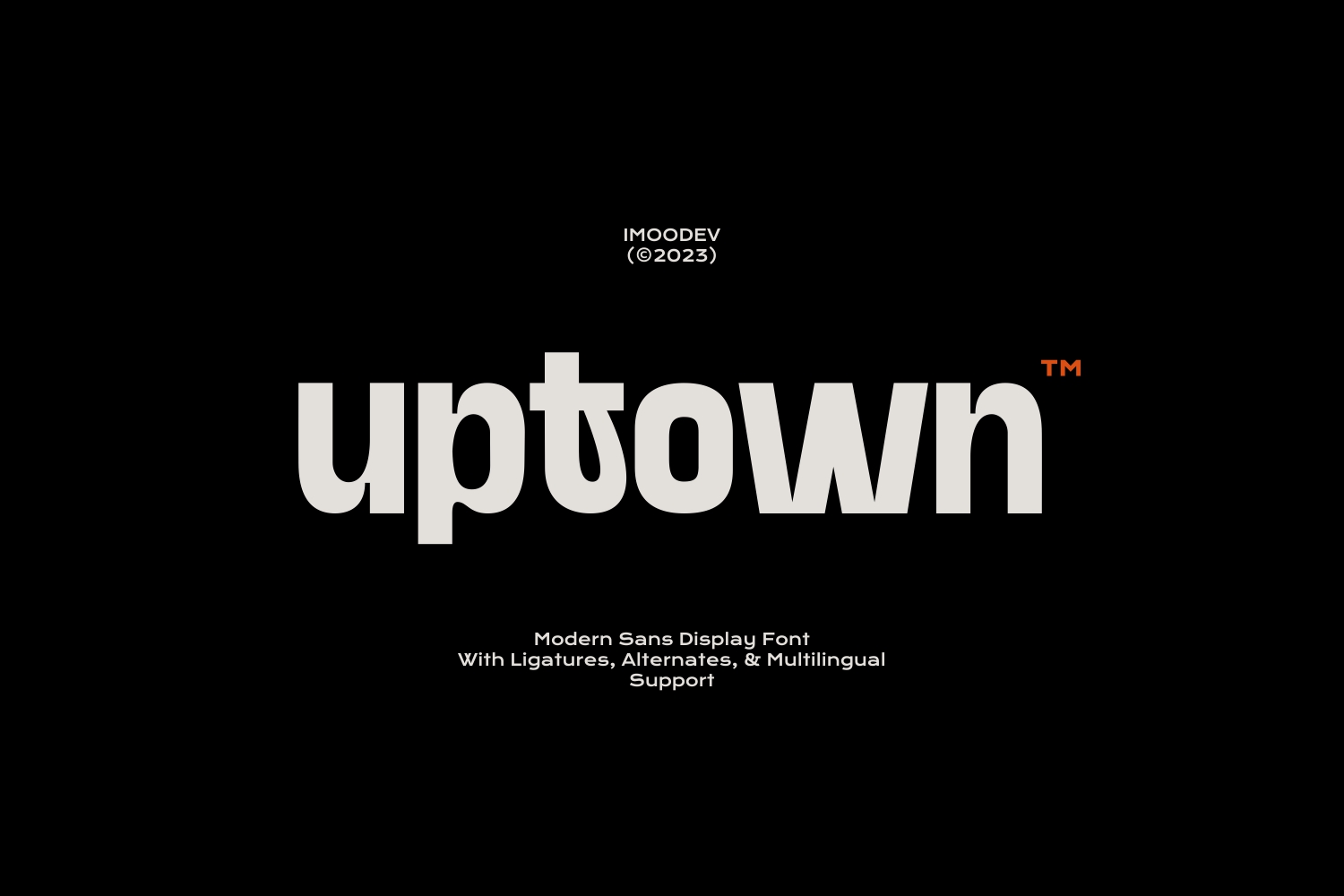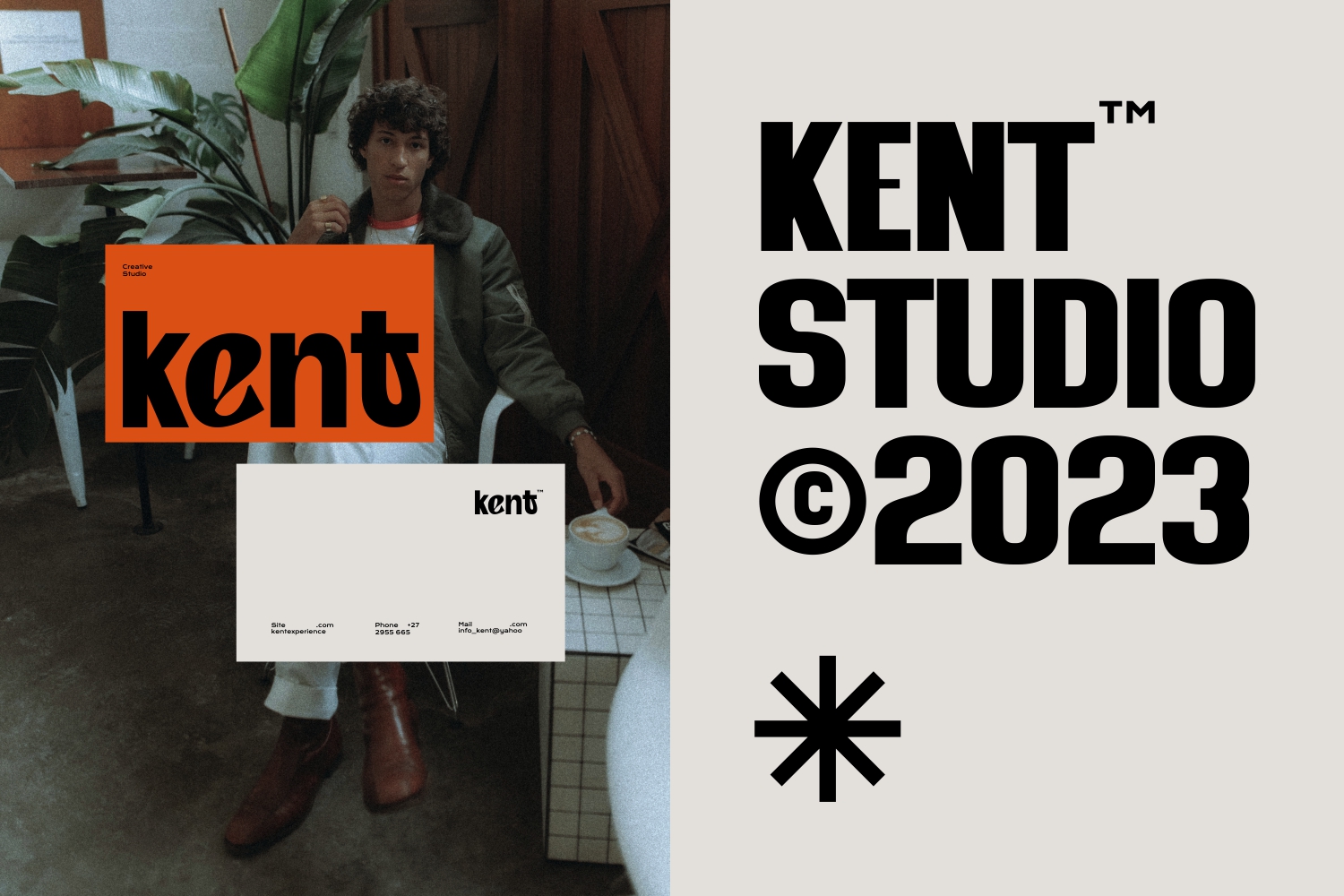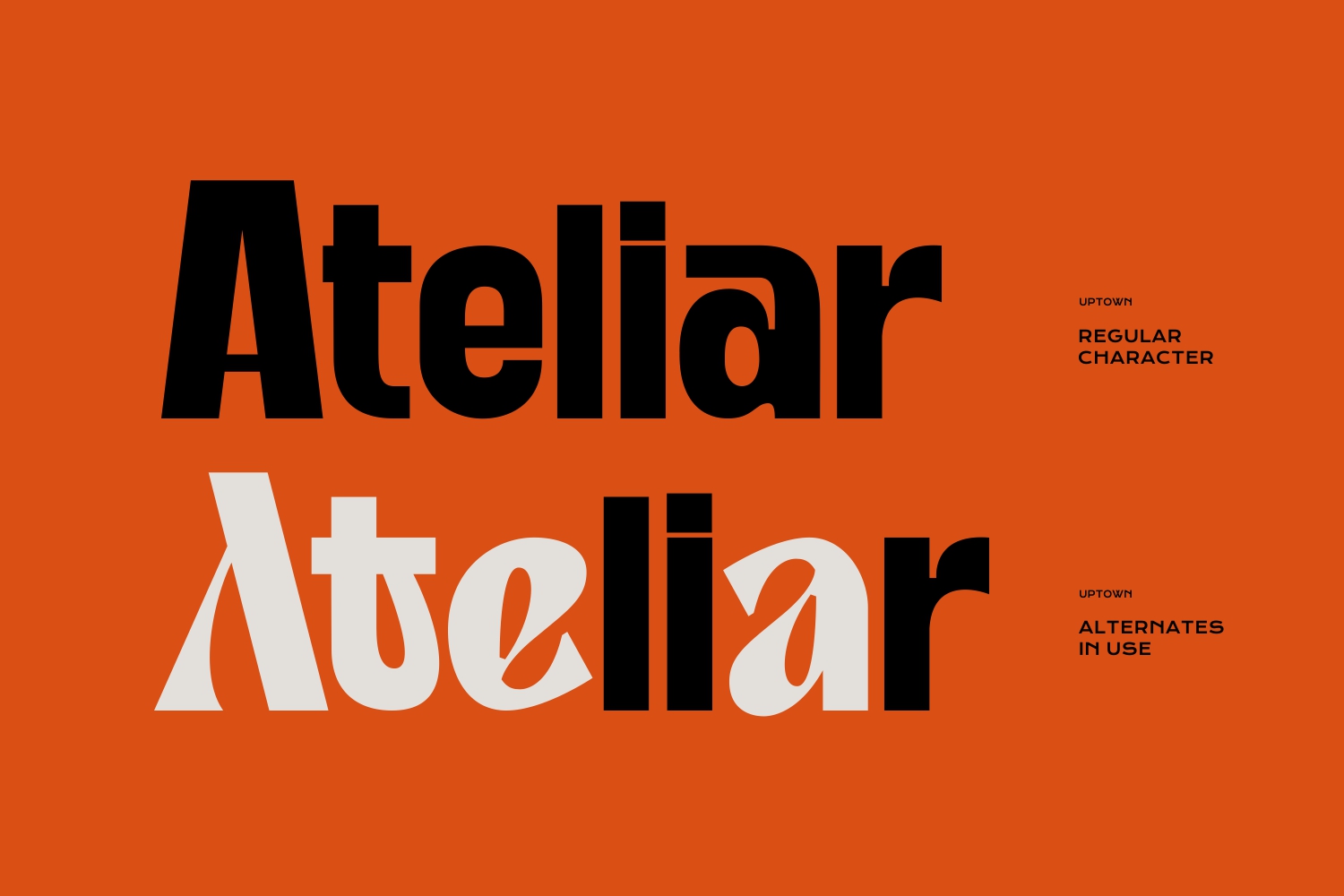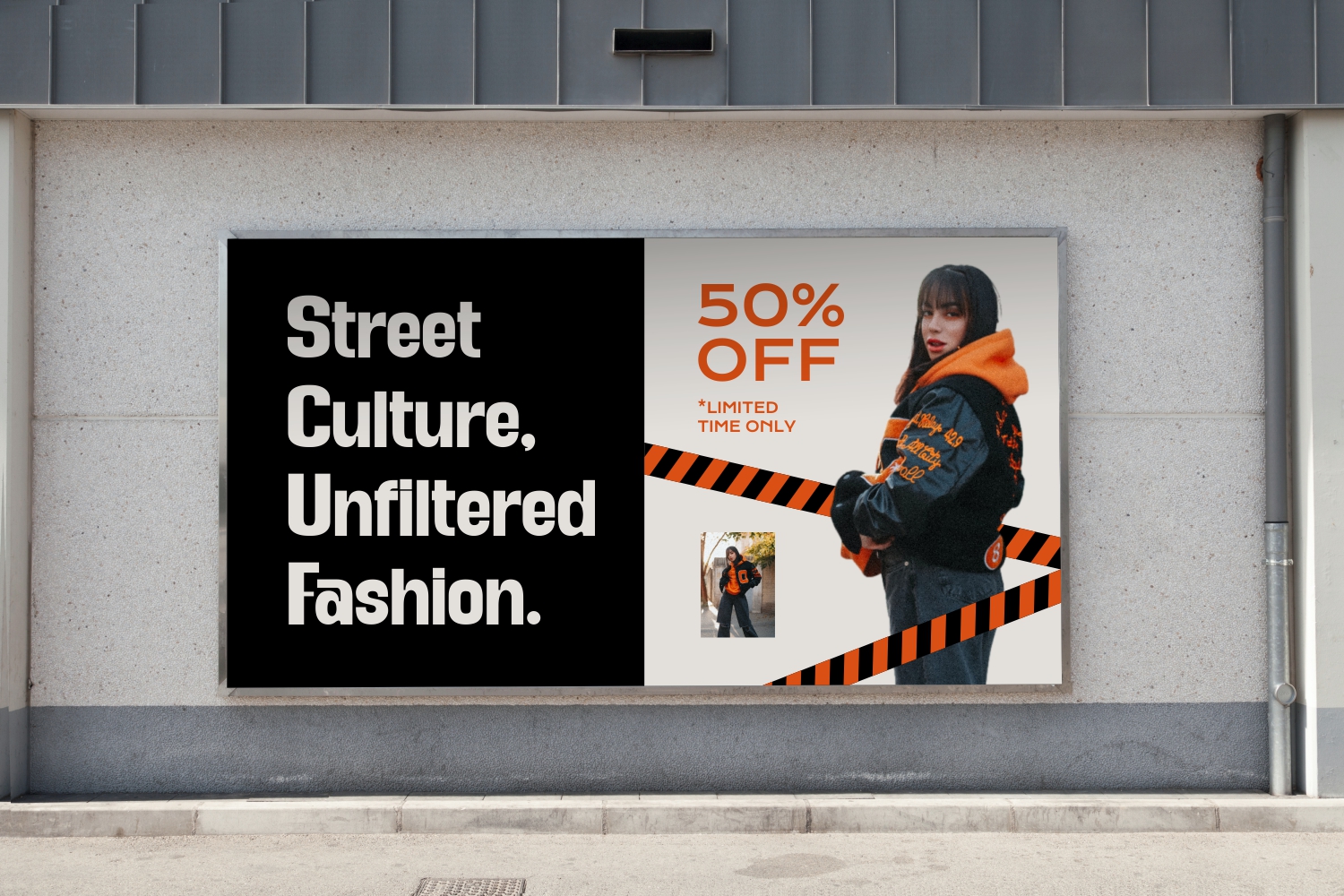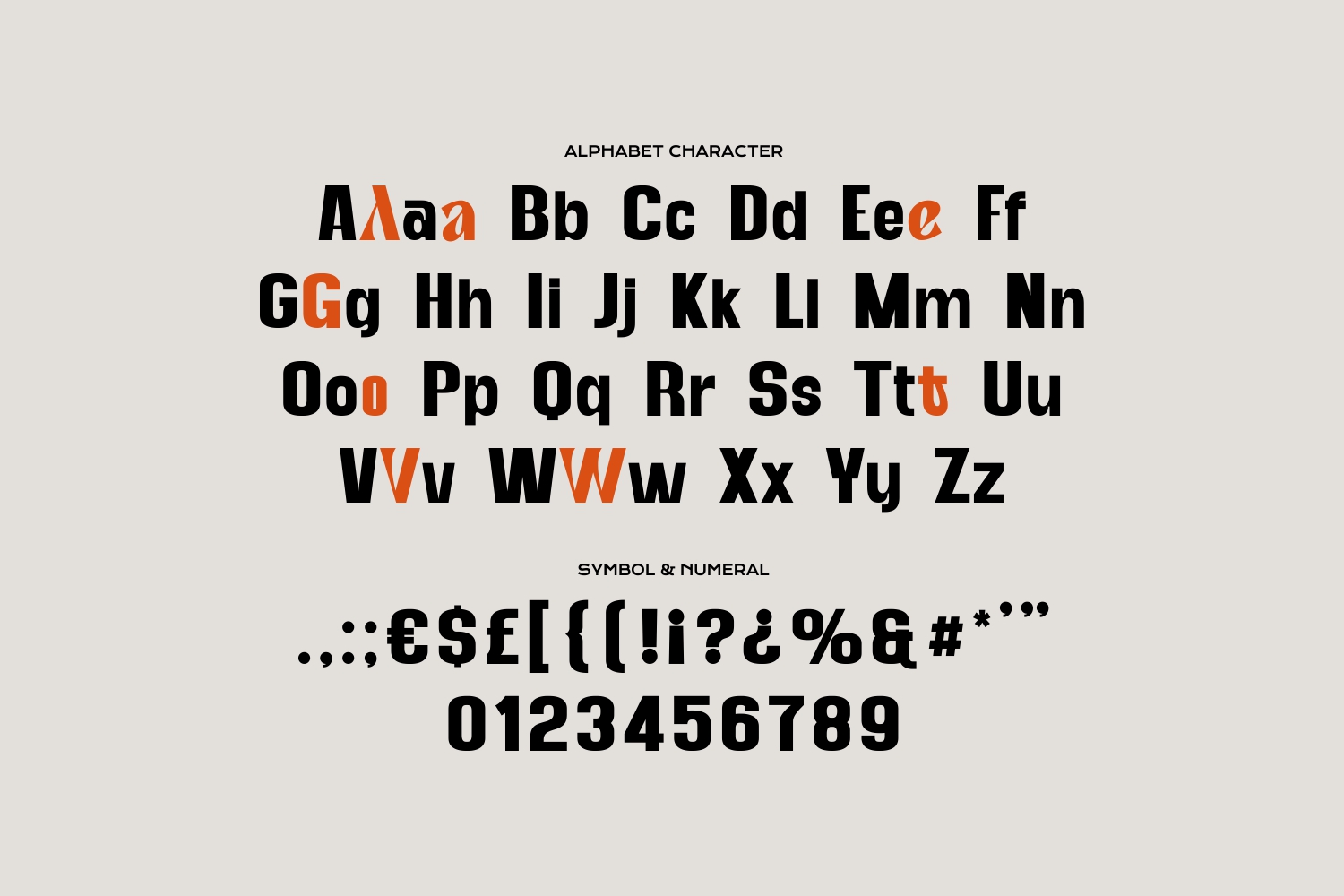
Uptown is a bold and modern sans display font that captures the essence of urban style and contemporary design. With its clean lines, strong geometry, and distinctive character shapes, it brings a confident and stylish presence to any project. Perfect for branding, headlines, posters, and streetwear-inspired designs, Uptown stands out with its unique alternates and impactful letterforms that radiate creativity and edge.
Complete with ligatures, alternates, and multilingual support, Uptown offers flexibility and versatility for designers seeking a typeface that is both functional and expressive. Whether for editorial layouts, fashion campaigns, or bold advertising concepts, this font delivers a perfect balance between modern sophistication and street-inspired attitude.